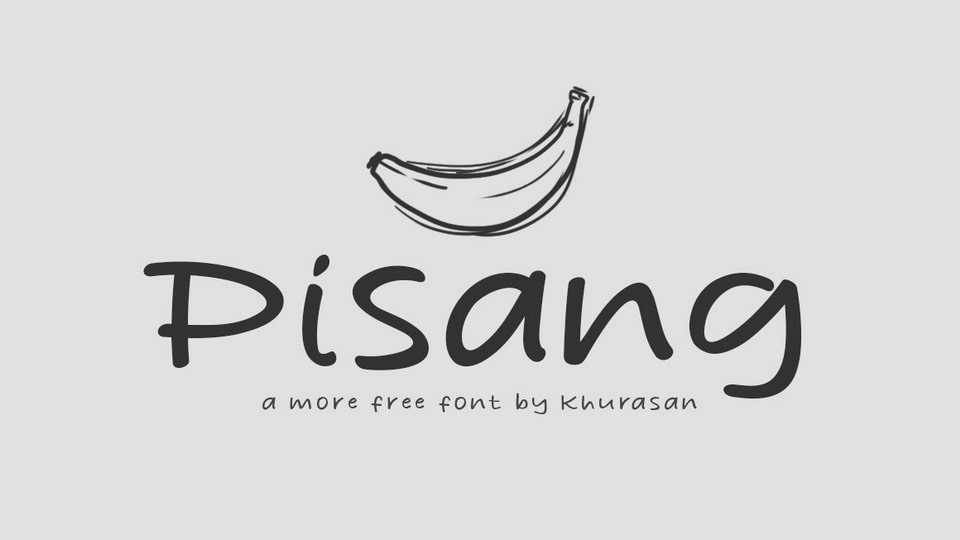
Download Pisang font, a simple and organic hand drawn typeface. Pisang is perfect for writing out quotes for Instagram posts, wall art or greeting cards, crafts, packaging or branding.